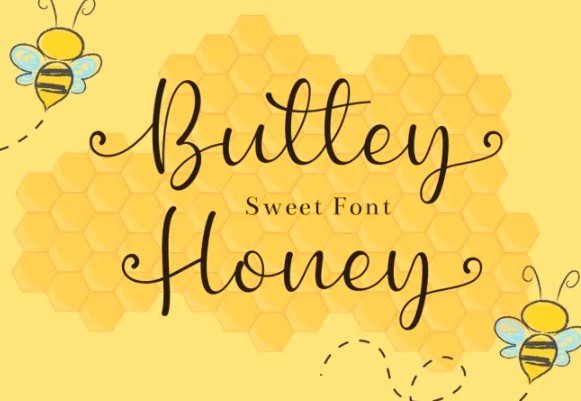
Presenting a top-notch and high-quality typeface font ideal for pairing. This font boasts excellent features, distinctive characteristics, and attractive styles, making it perfect for effortlessly creating intricate designs.
Name | Buttey Honey Calligraphy Font |
Style | Scripted |
Designer | Bifonts |
This typeface contains a great scripted look and having awesome features which you can used with the combination of barlow font which you can used for making premium designs easily. Also, the best way to use it as a pairing, making a large number of designs, used in any types or any sizes of headings or headlines purpose. This has brilliant textured designs.